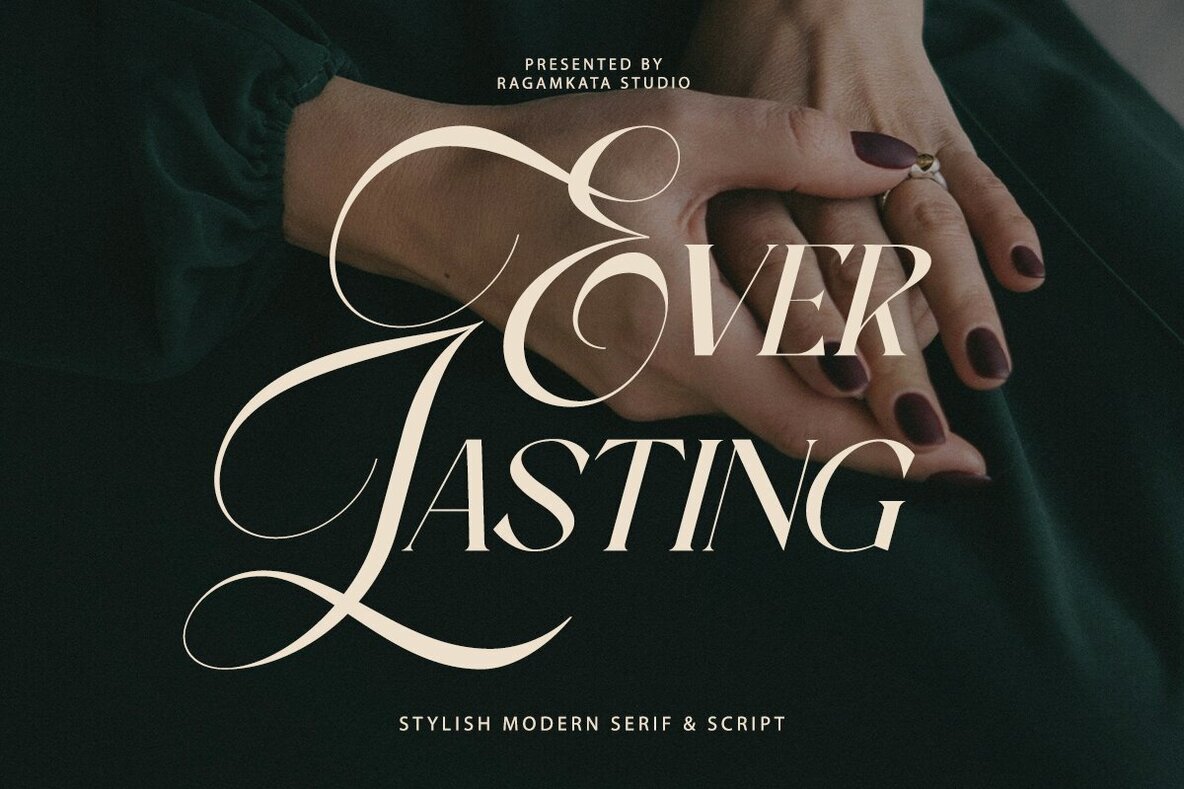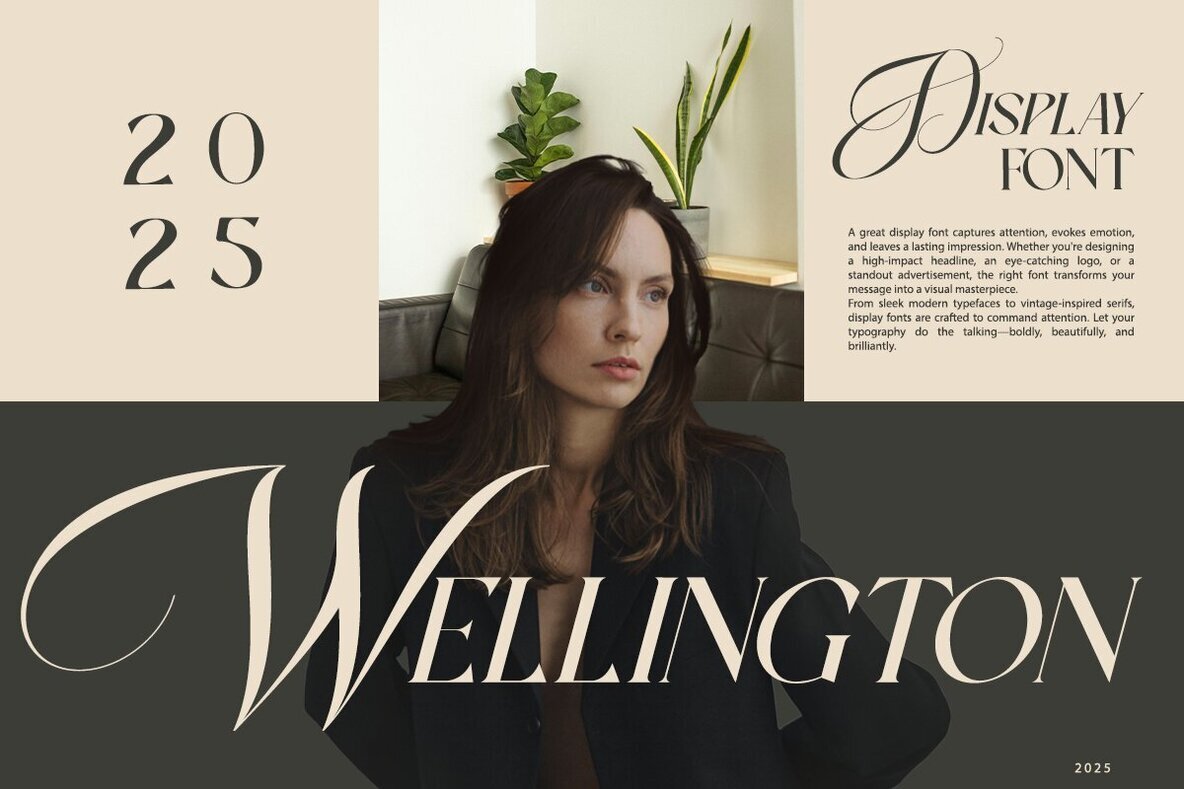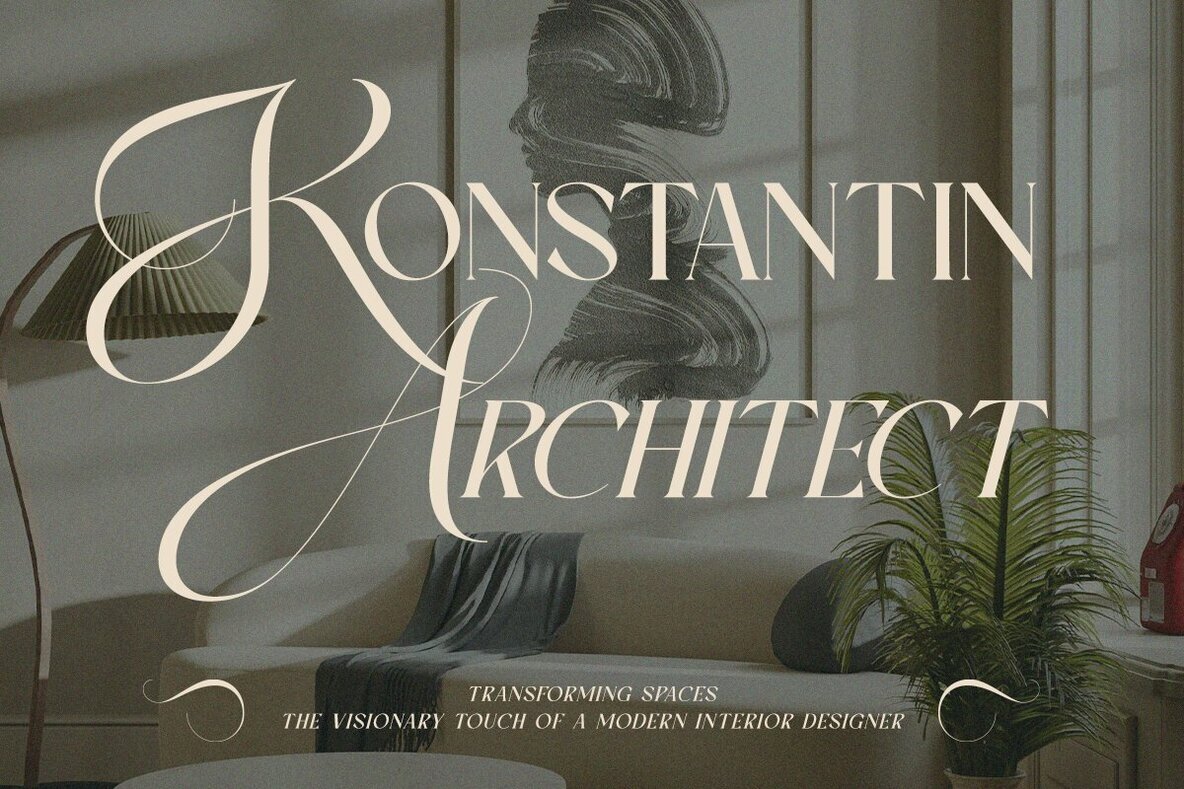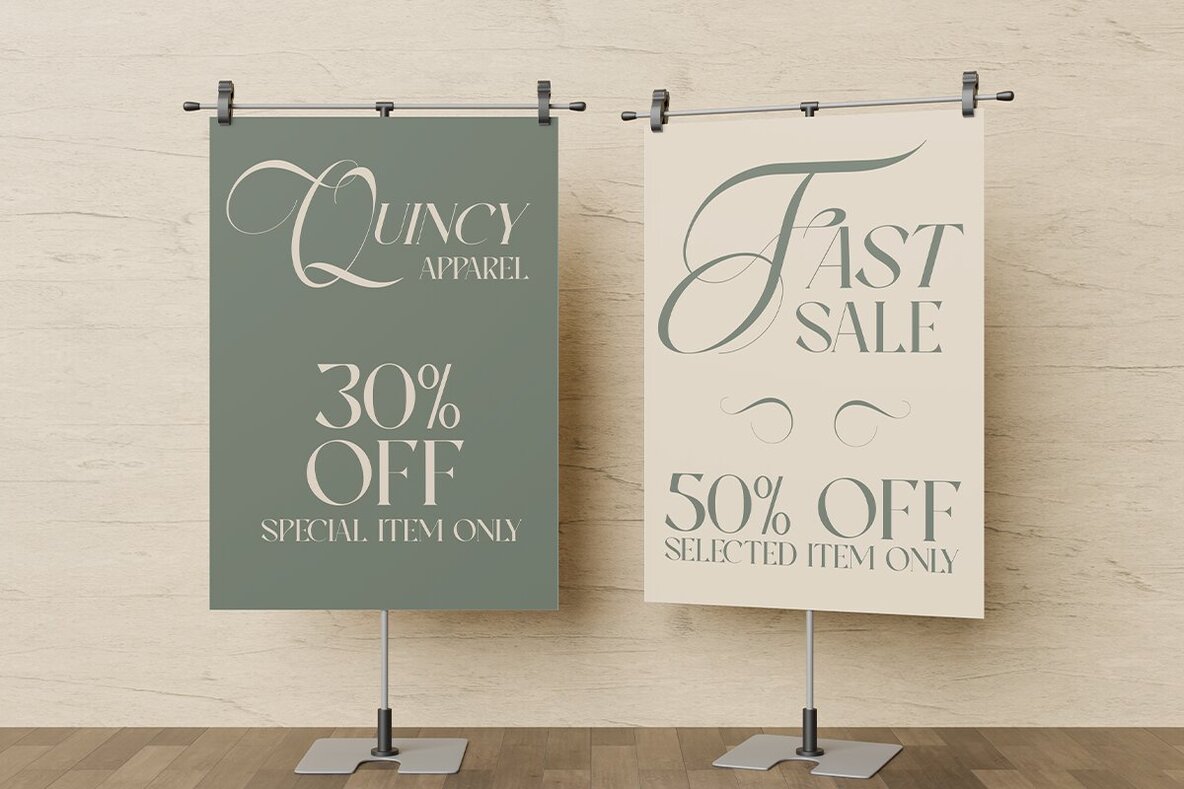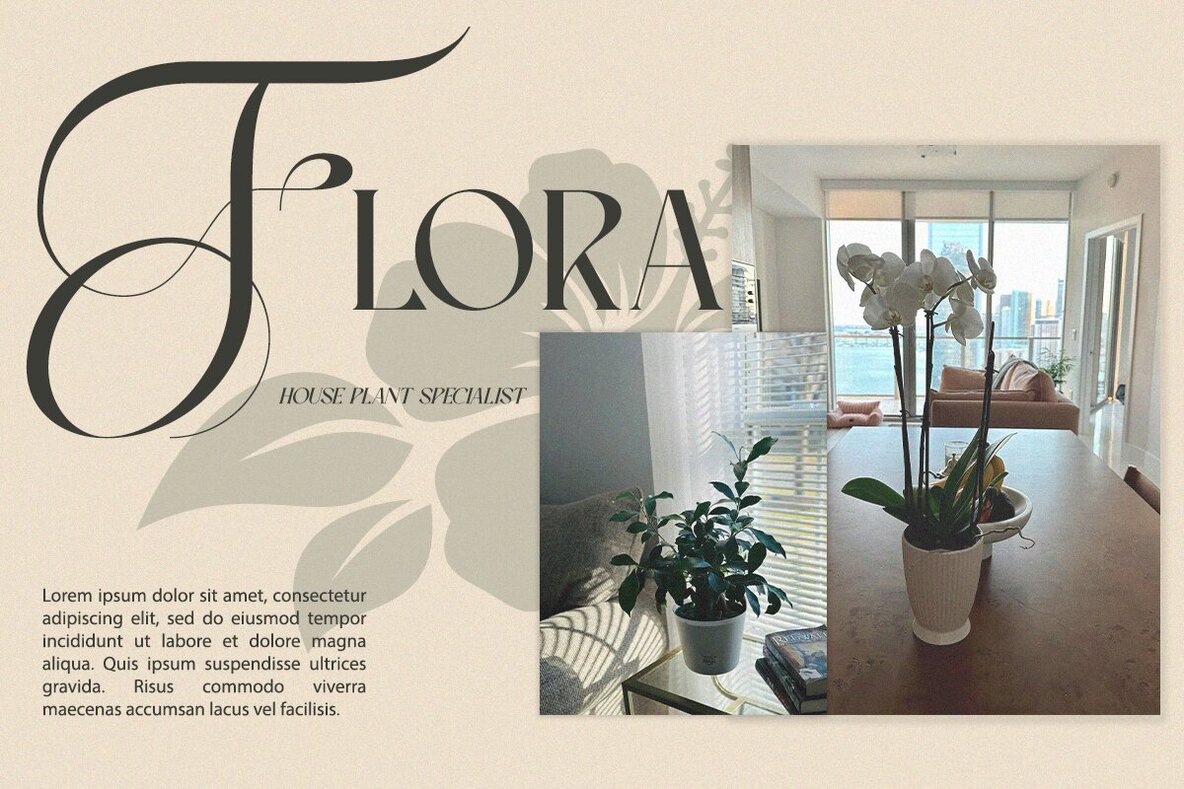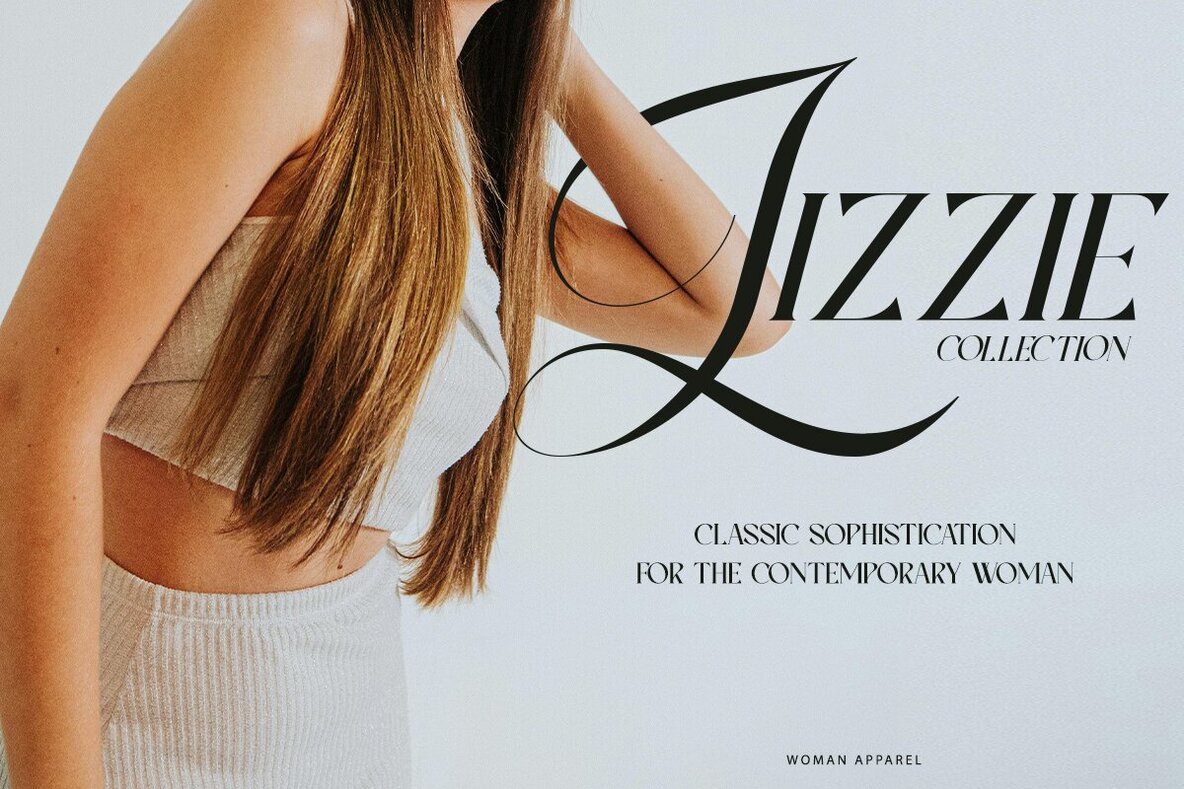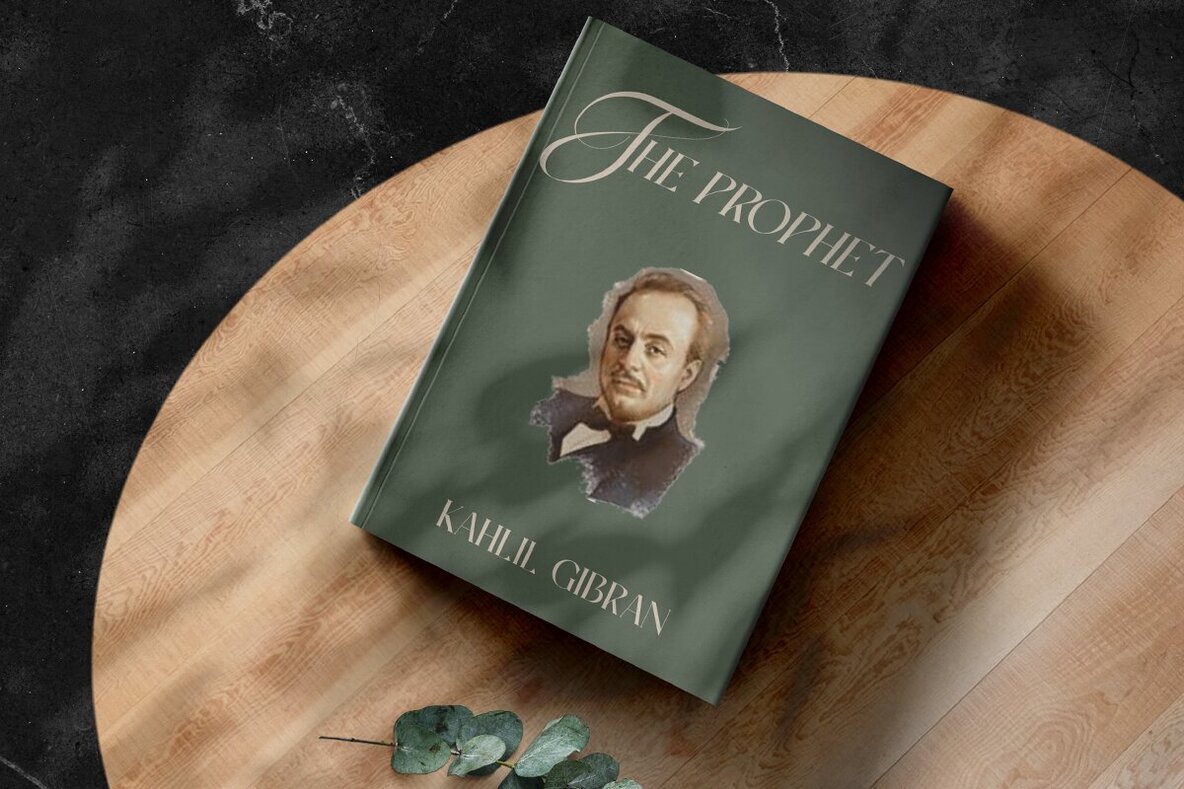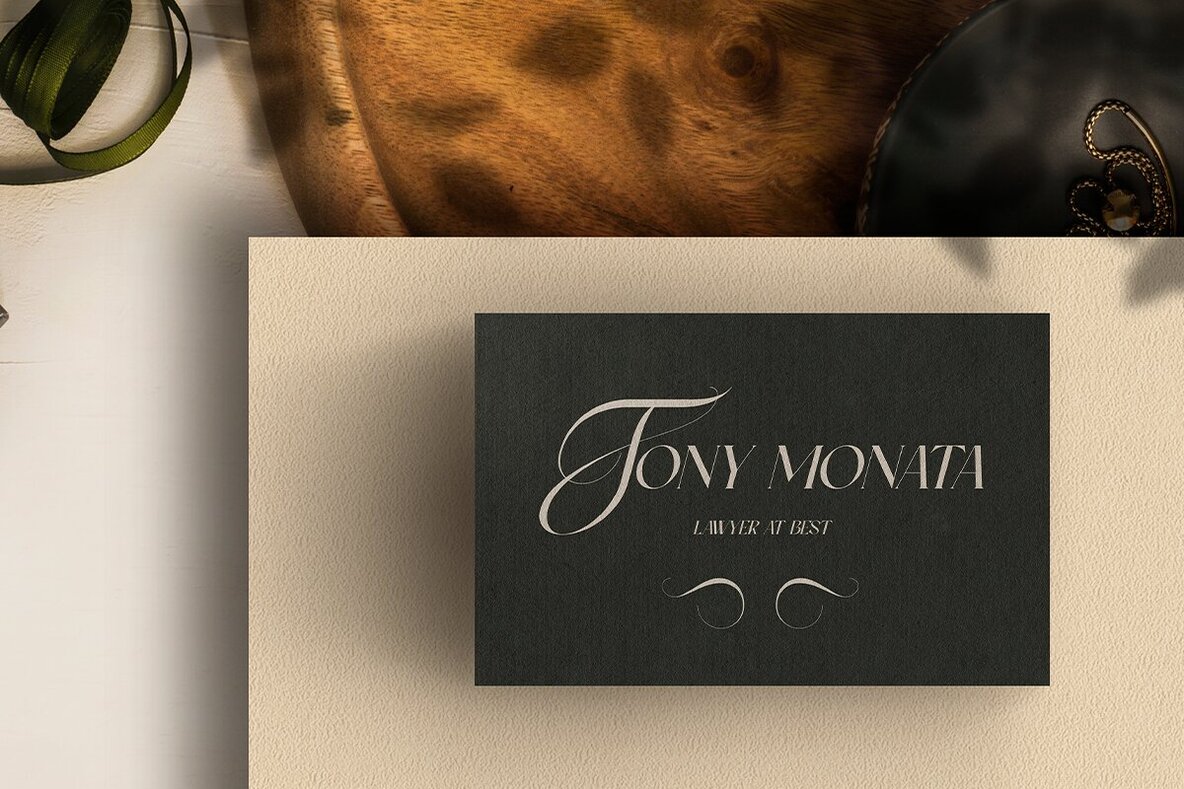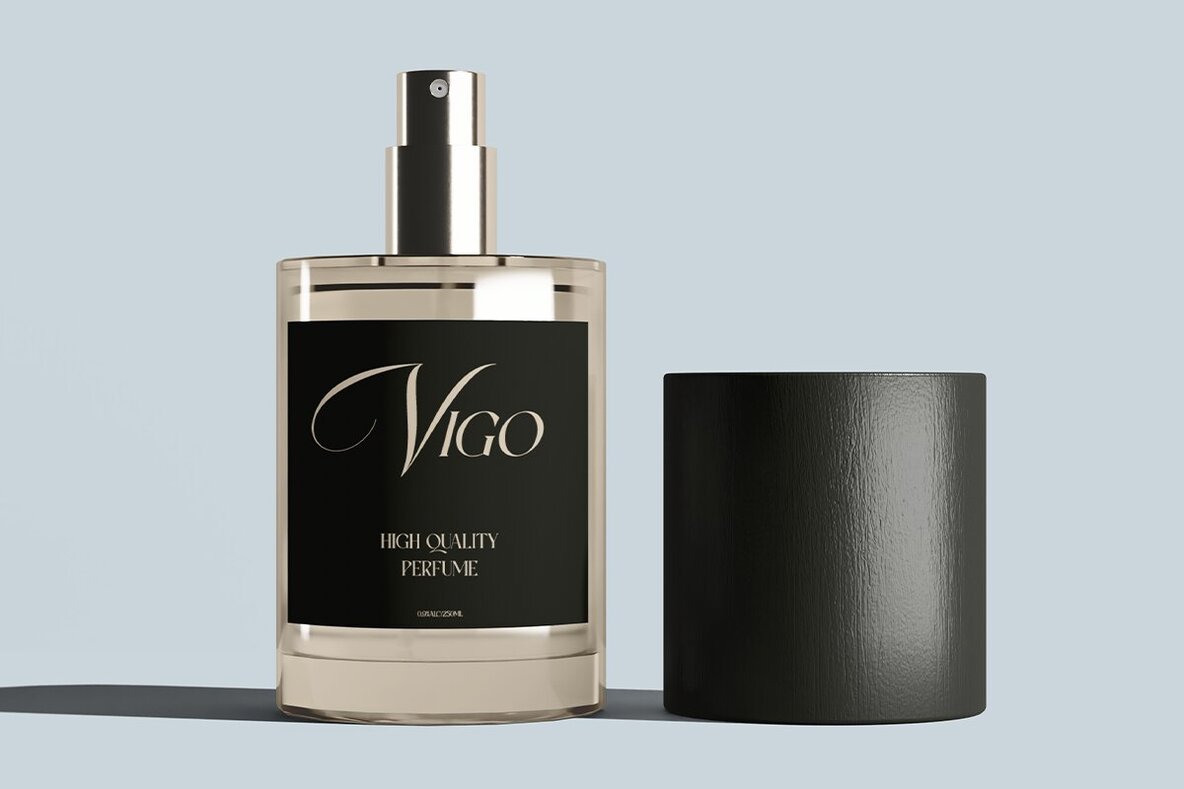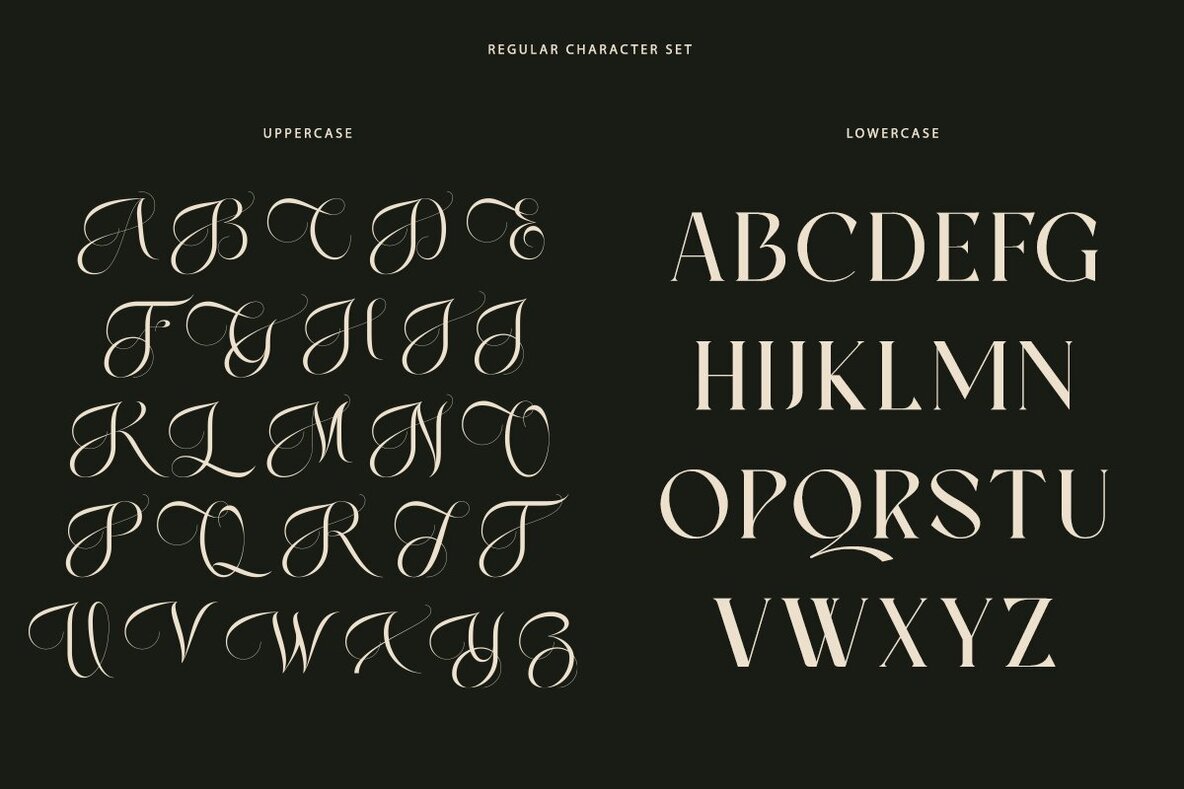
Ever Lasting Font
Ever Lasting is a luxurious script and serif font pairing, ideal for designers seeking sophistication and flexibility. The uppercase letters are meticulously crafted in an impactful script style, perfect for creating eye-catching designs. The lowercase letters feature a tidy and formal serif style, offering a refined aesthetic.
This elegant combination of bold cursive strokes and delicate serif details ensures versatility in your projects. Ever Lasting is designed for multilingual use and is PUA encoded, making it accessible for a variety of creative needs.